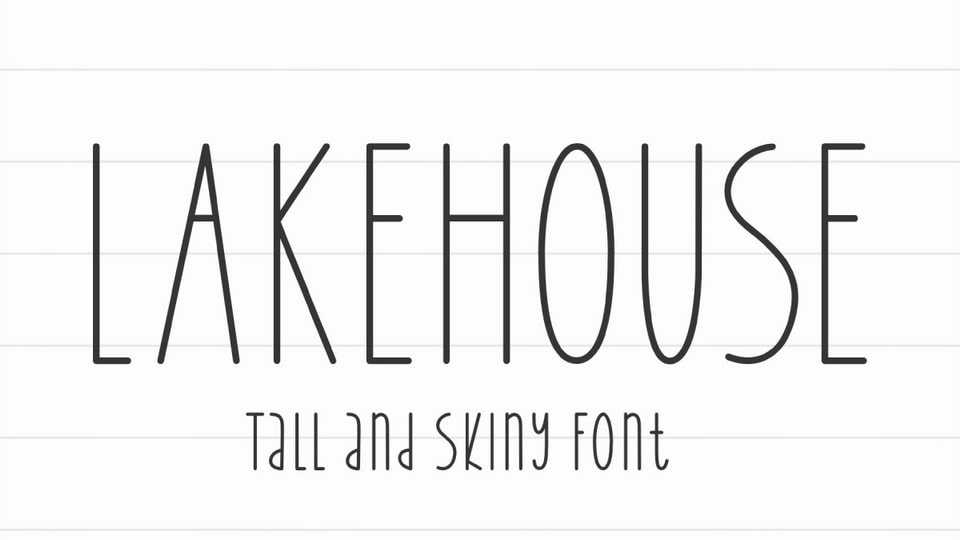
Download Lakehouse font, a tall and skinny typeface that is perfect for signs! Check out our other farmhouse-style fonts that pair perfectly with this one!